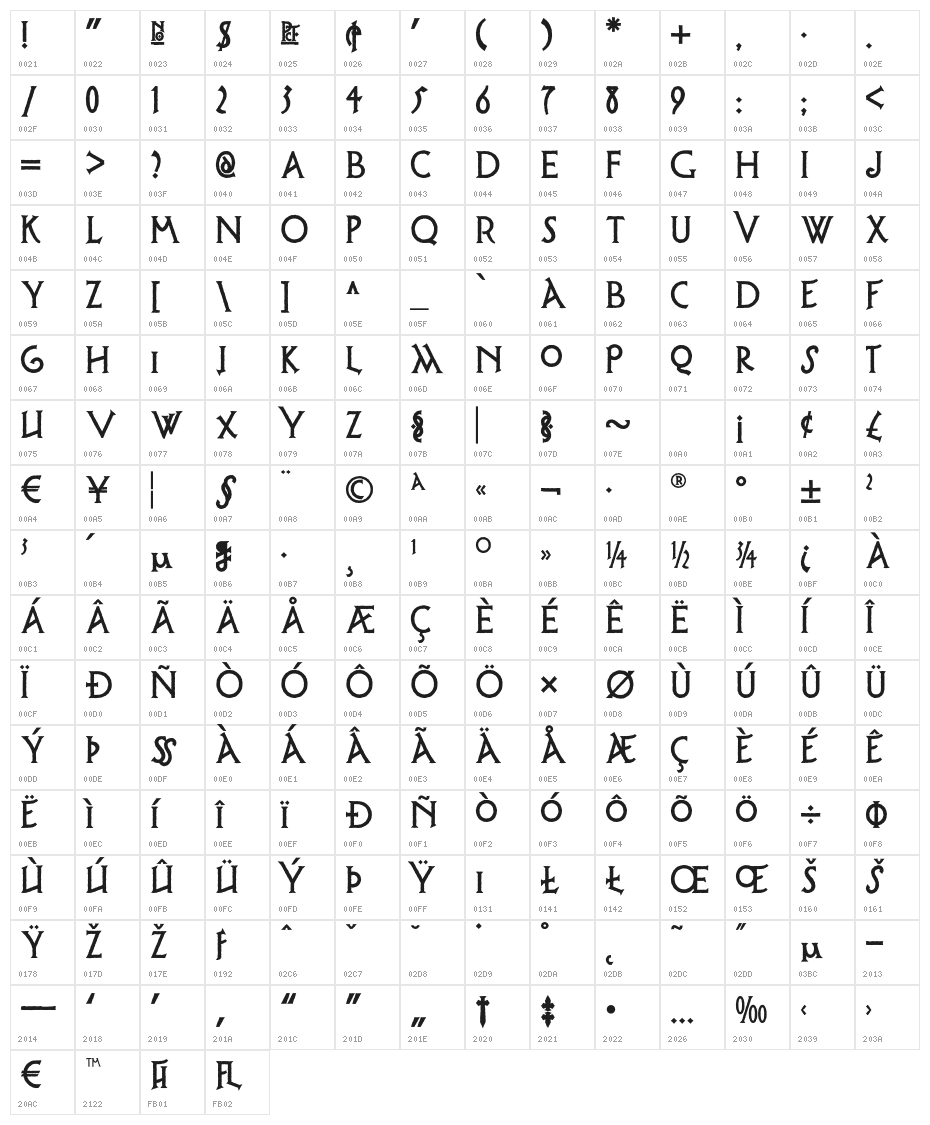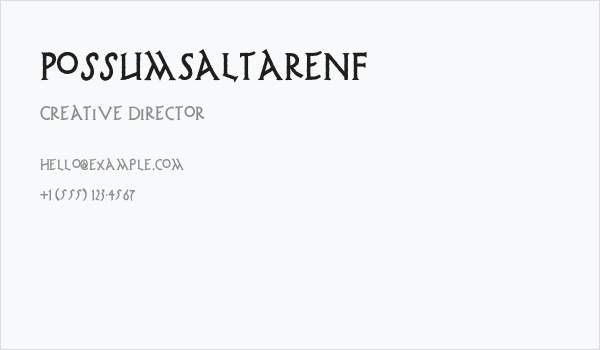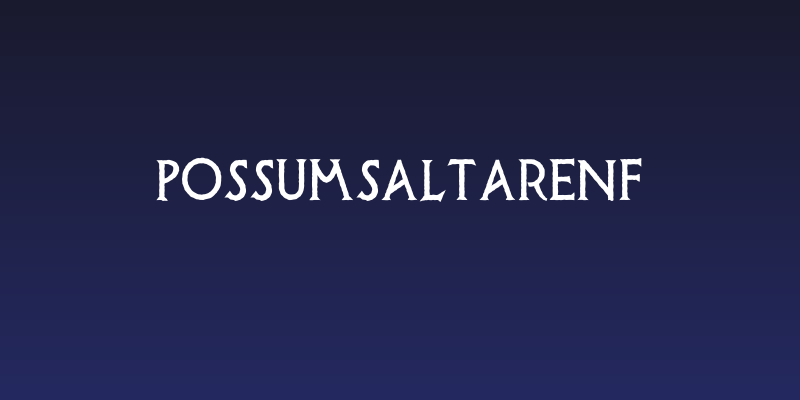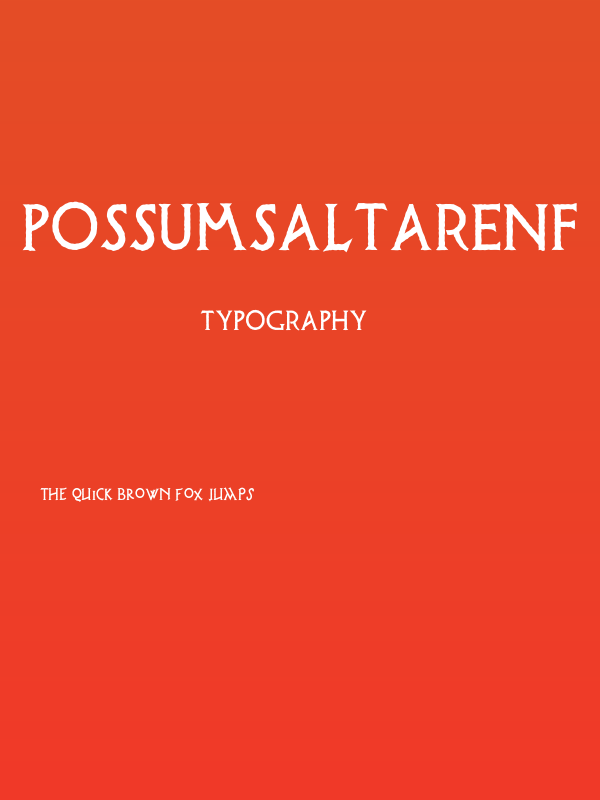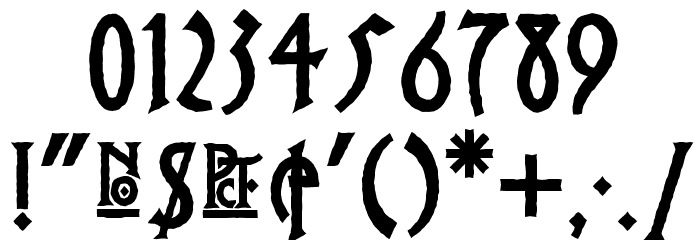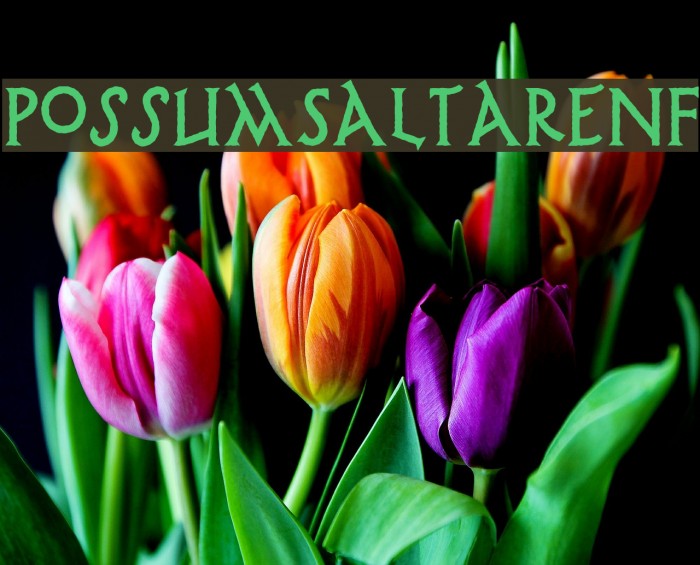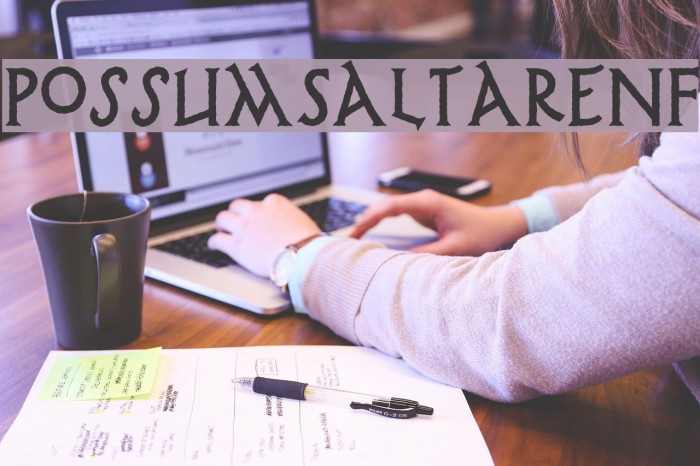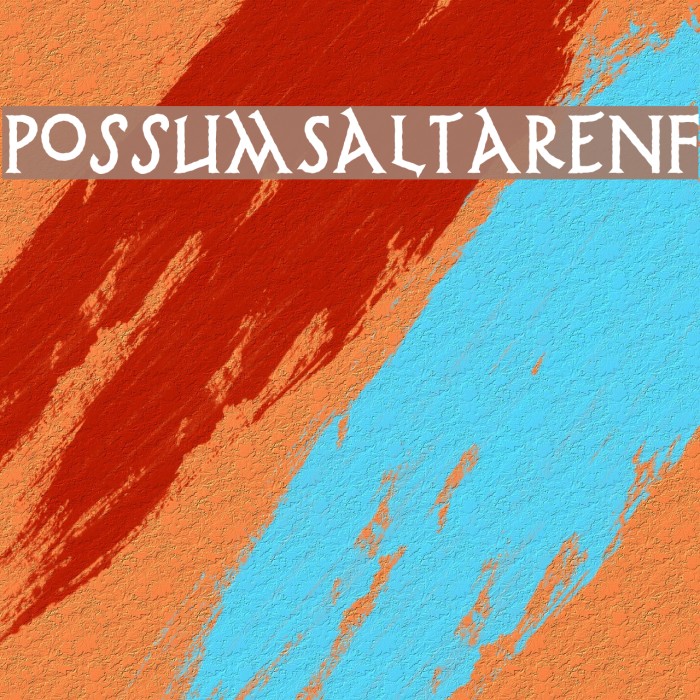
PossumSaltareNF Font
PossumSaltareNF Description
This font features a distinctive, hand-drawn style with a medieval flair, characterized by its uneven strokes and slightly irregular letterforms. The uppercase letters exhibit a strong presence with sharp serifs and a slightly condensed appearance, while the lowercase letters maintain a consistent style, offering a whimsical yet legible look. The numerals and special characters follow the same aesthetic, providing a cohesive and artistic feel. The overall design is reminiscent of historical scripts, making it suitable for projects that require a touch of antiquity and elegance.
| Proposed Projects | Ideal for historical-themed designs, fantasy book covers, medieval event posters, and artistic branding. |